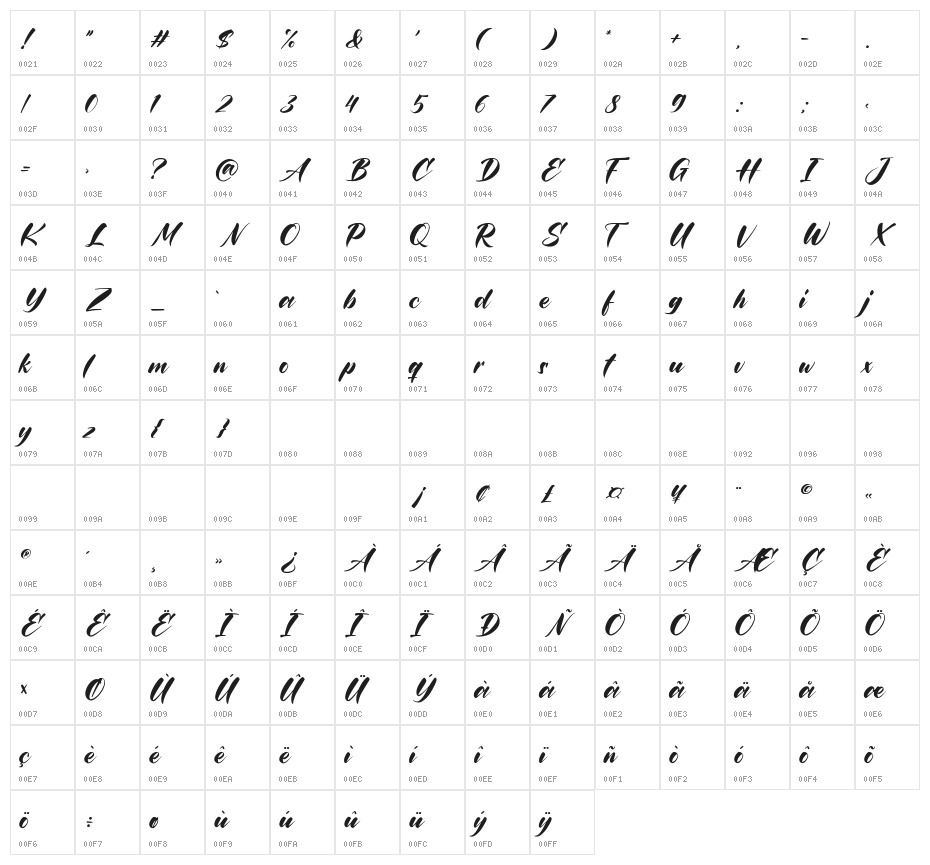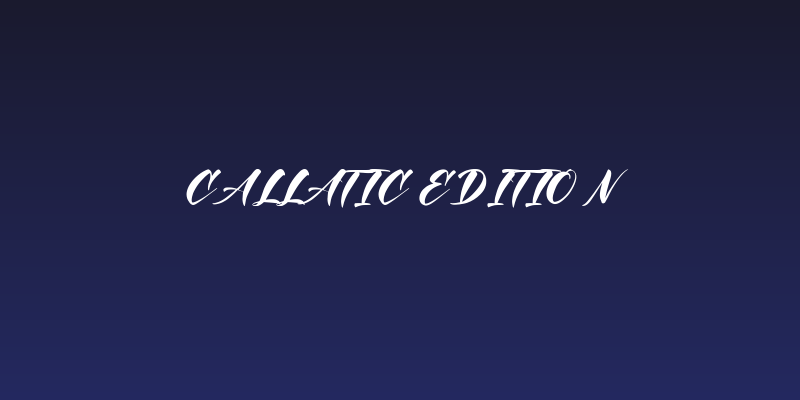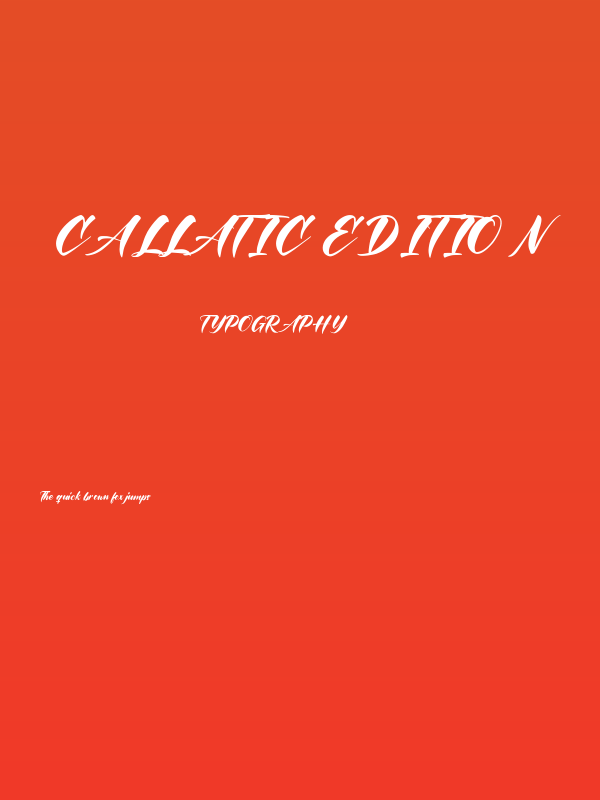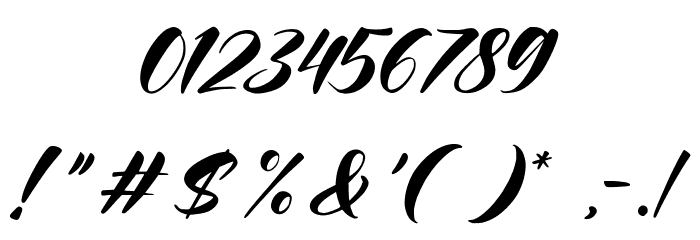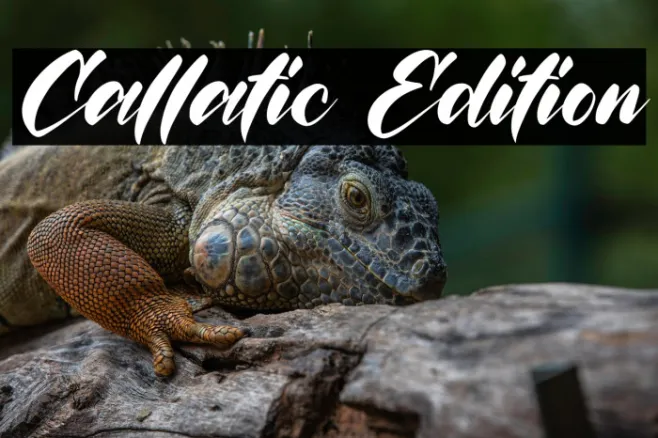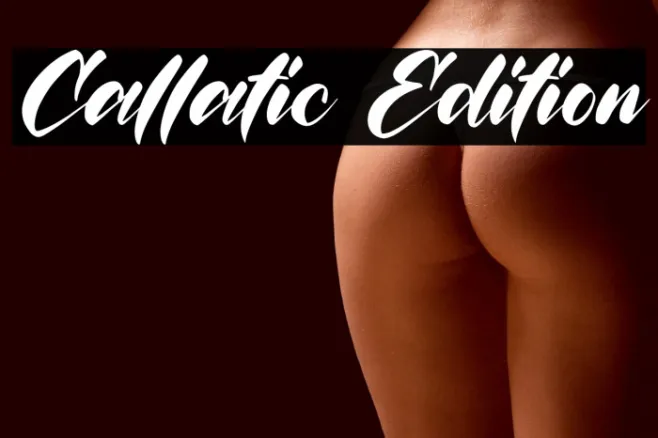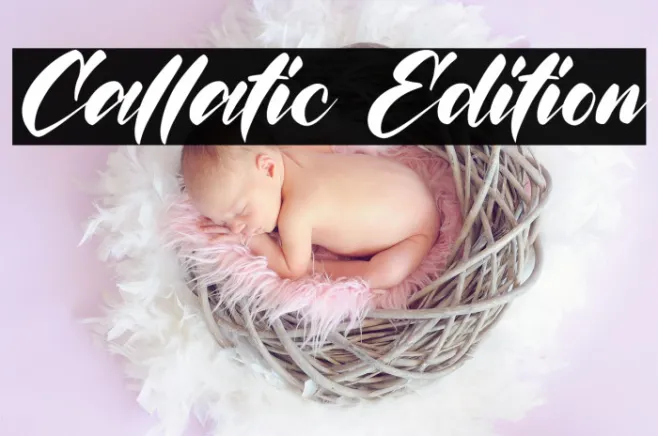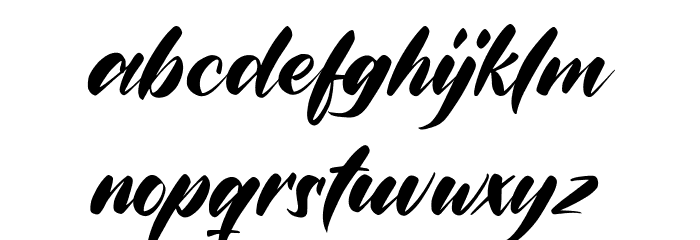
Callatic Edition Font
Callatic Edition Description
This font features a dynamic and flowing script style, characterized by its elegant and cursive letterforms. The uppercase letters exhibit a bold and sweeping motion, while the lowercase letters maintain a consistent fluidity, enhancing readability. The numerals are crafted with the same artistic flair, ensuring a cohesive look across all characters. Special characters are integrated seamlessly, maintaining the overall aesthetic. The font's design is reminiscent of traditional calligraphy, yet it incorporates modern elements that make it suitable for contemporary use.